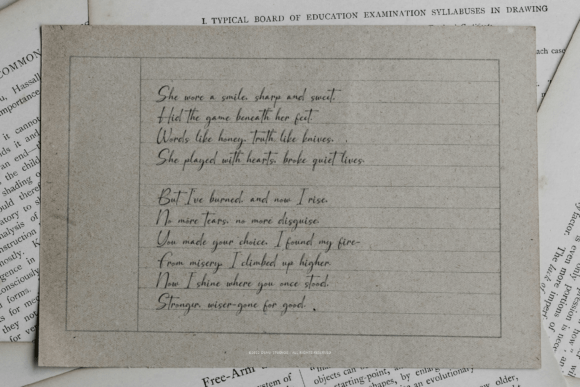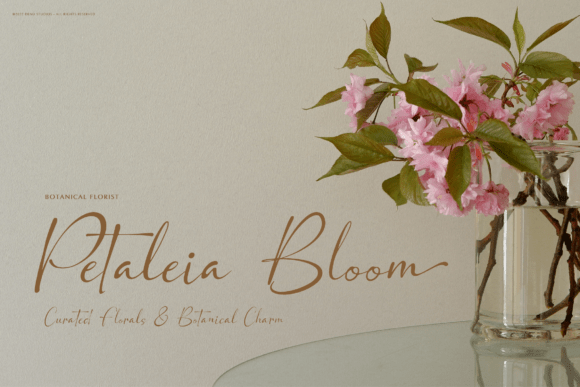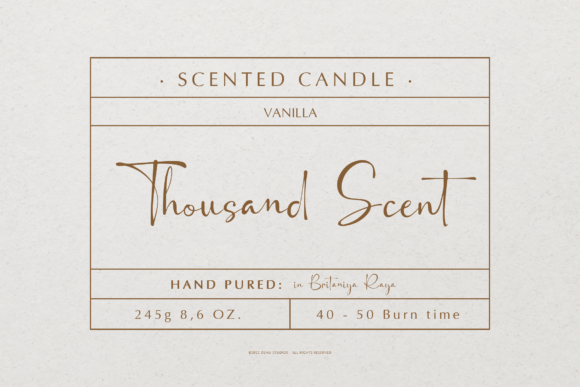
Introduction to Bohemiya Felmirah Font
Bohemiya Felmirah is a graceful signature font that captures the essence of elegance and femininity.
With fluid strokes and delicate curves, this handwritten script is perfect for personal branding, luxury packaging, beauty logos, and modern invitations Its natural flow and stylish ligatures create a handcrafted look that feels personal and sophisticated.